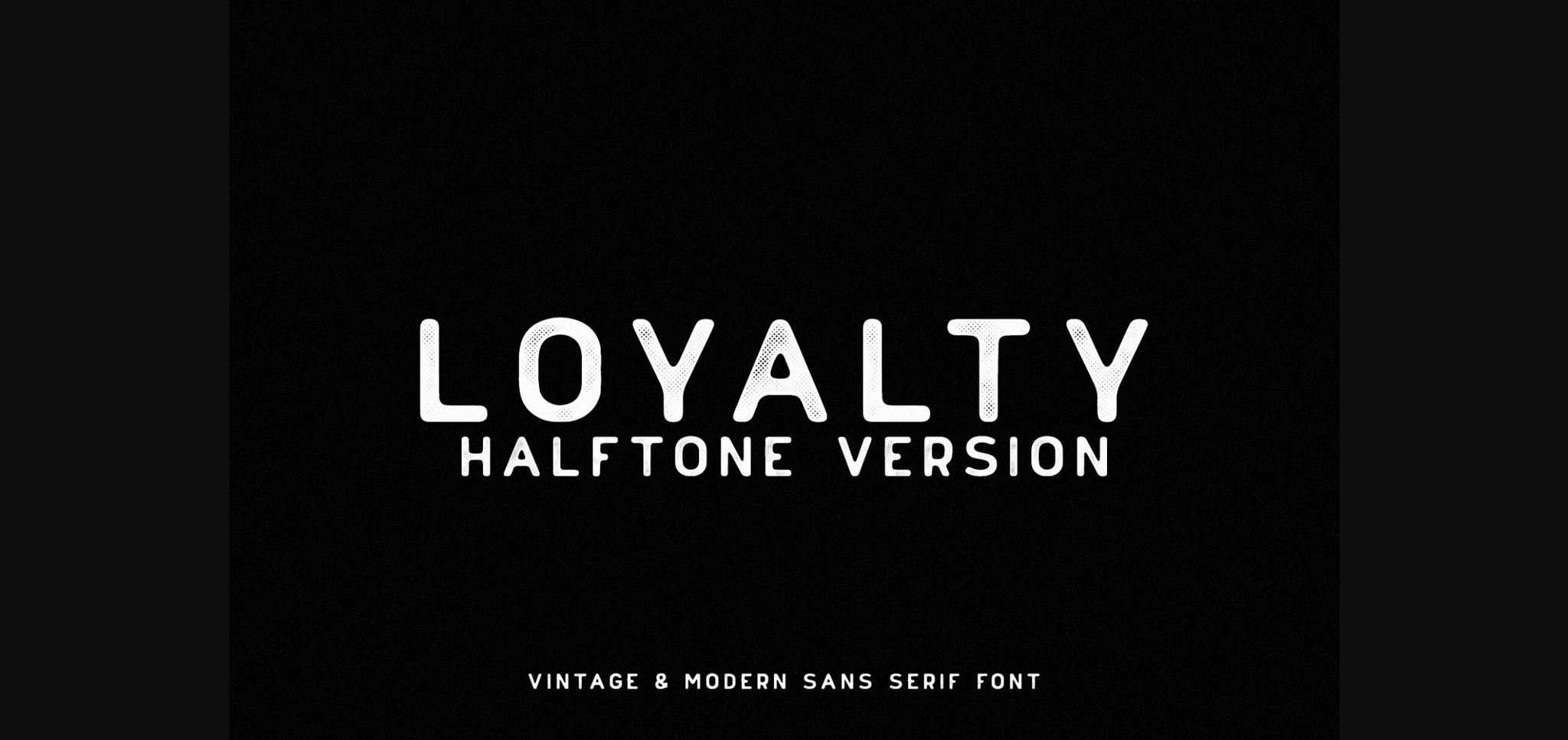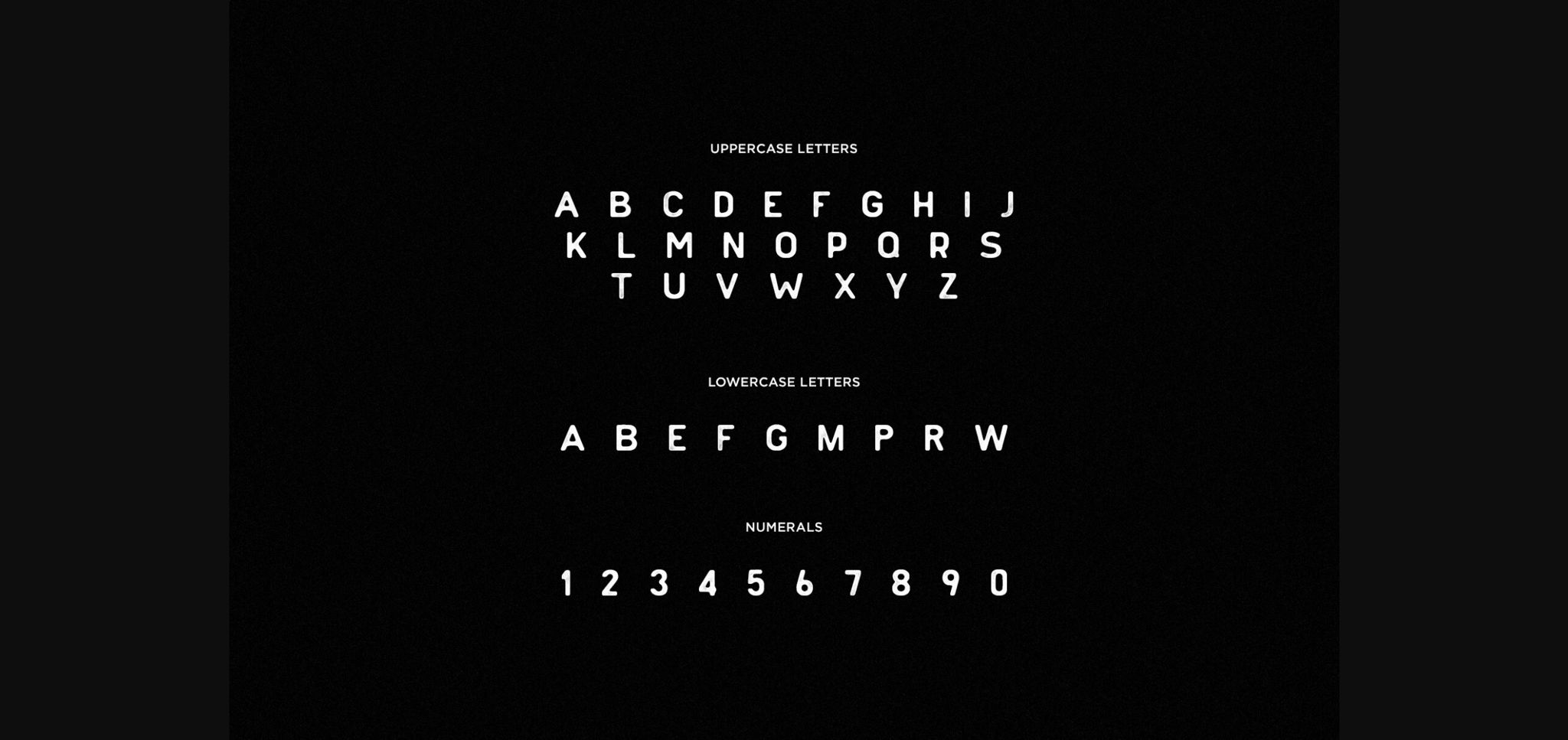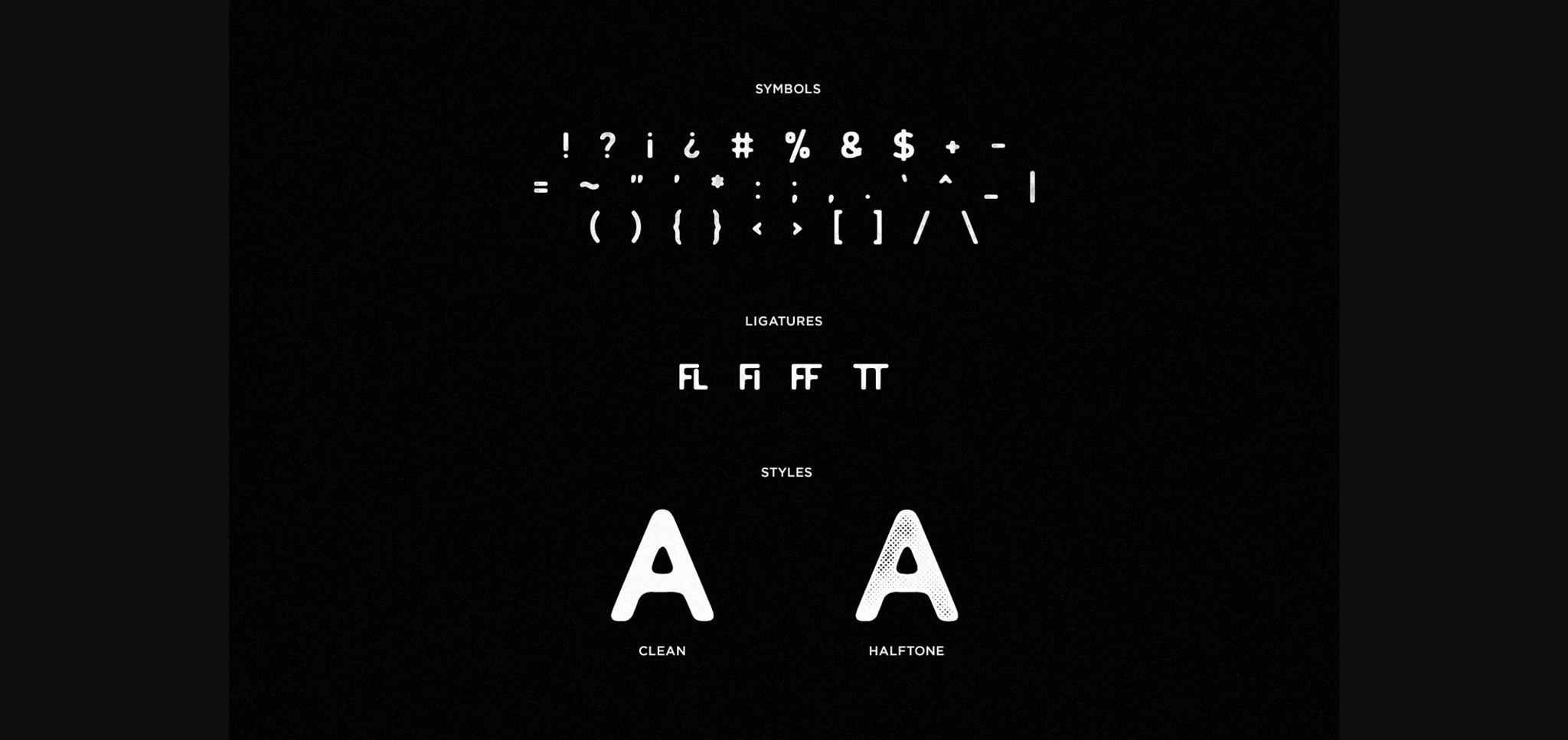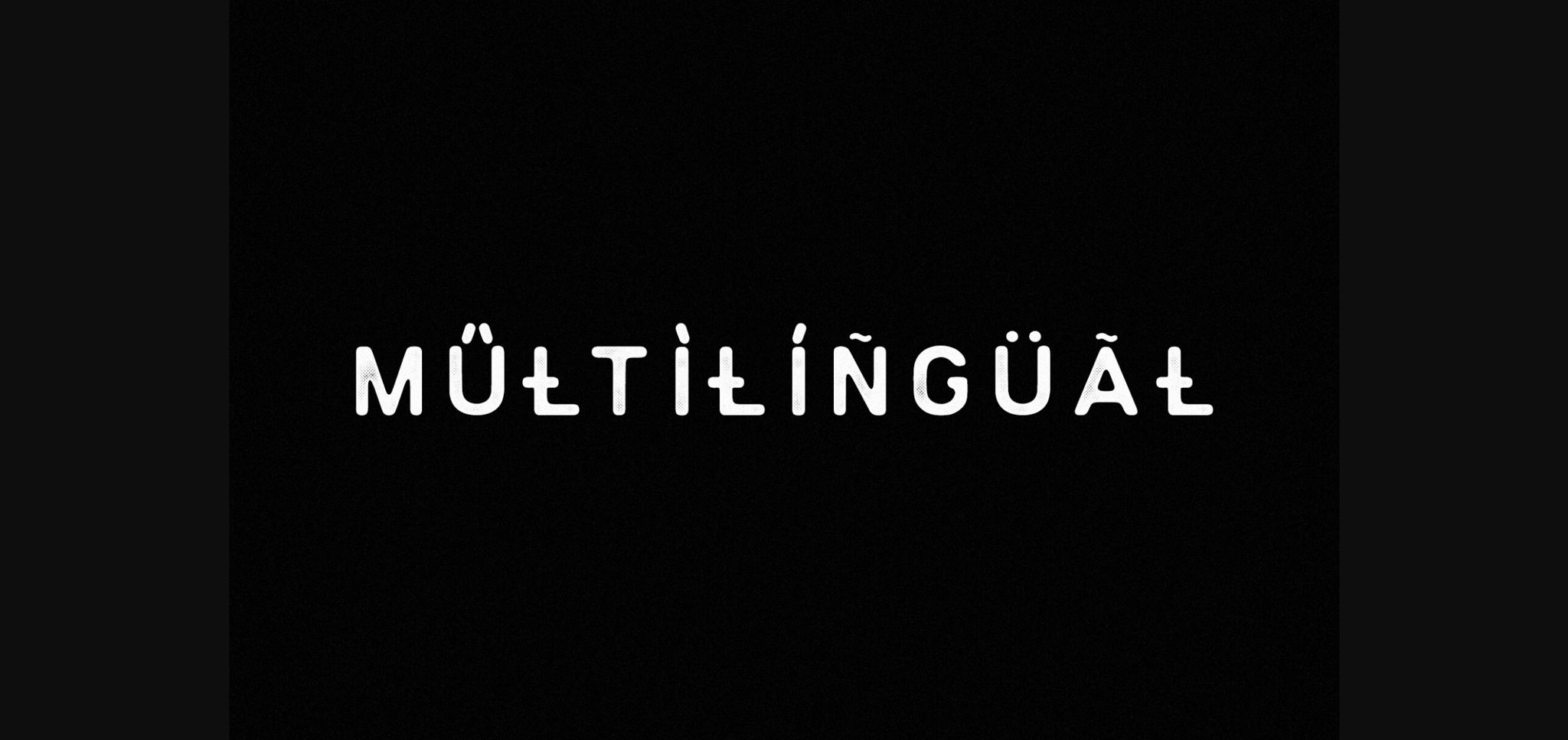
Loyalty Halftone Font
About Loyalty Halftone Font
Loyalty Regular is a simple & modern hand-drawn font. The font has a vintage style that can be used for prints on t-shirts, hoodies, cups, shirts, stickers, etc. Loyalty Regular includes letters, numbers, symbols & punctuation, and foreign language accents.